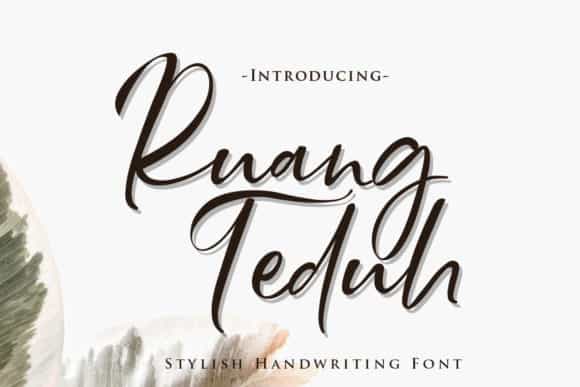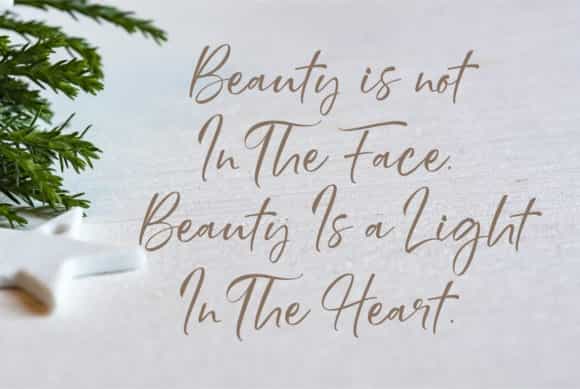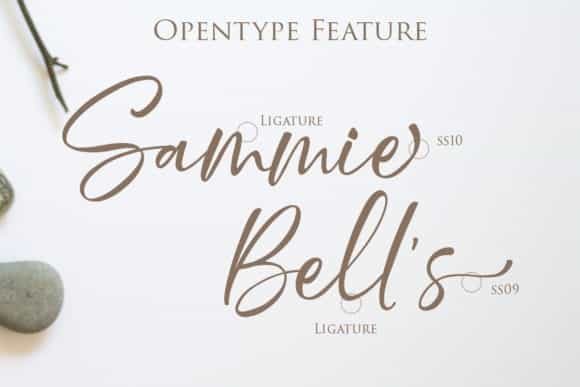
Ruang Teduh Font is a new stylish and modern script that has been created by hand-brushing, decorative characters and dancing baselines! This typeface is ideal for personal branding, business cards, stamps, quote posters, and greeting cards. Don’t also neglect wedding season! It would be beautiful on Save The Date cards or invites.